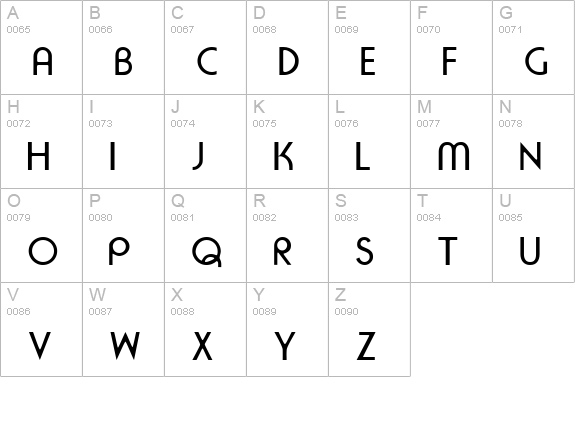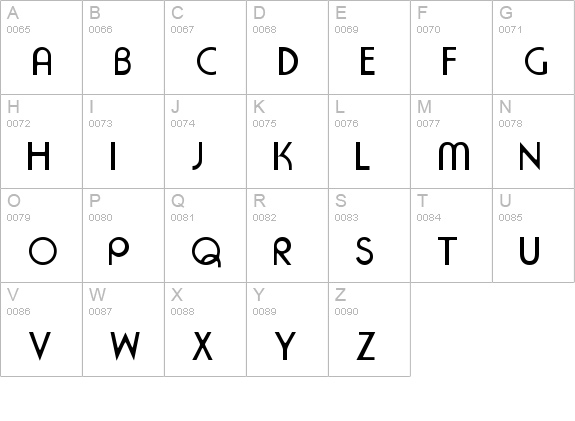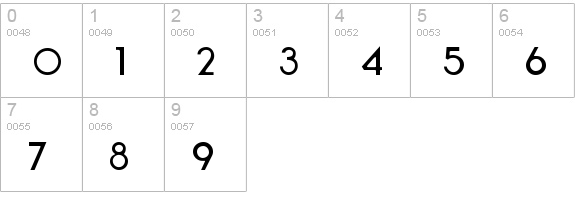
Serius SSi Font Details
Introducing Serius SSi, a captivating and versatile font that effortlessly blends elegance with modernity. This font is a true gem for designers, typographers, and creatives alike, offering a wide range of possibilities to elevate any project to new heights. Serius SSi boasts a unique and distinctive aesthetic that commands attention and leaves a lasting impression. Its refined letterforms exude sophistication and professionalism, making it a perfect choice for corporate branding, editorial design, and high-end products. From sleek and minimalist to bold and expressive, this font effortlessly adapts to various design contexts, adding a touch of class and sophistication. What sets Serius SSi apart is not only its impeccable design but also its accessibility. It is a font that caters to everyone, as it is freely available to download at FontsMarket.com. This means that you can unleash your creativity without any financial constraints, enjoying the freedom to experiment with this exceptional typeface in your personal and commercial projects. With a vast array of weights and styles, Serius SSi offers endless possibilities for customization and versatility. Whether you need a captivating headline, a refined body text, or a striking logo, this font has got you covered. Its clean and balanced letterforms ensure excellent legibility at any size, ensuring your message is communicated effectively. Serius SSi is a font that transcends trends and stands the test of time. Its timeless elegance and contemporary flair make it a reliable choice for any design project, whether it's print, digital, or web-based. So why wait? Download Serius SSi for free at FontsMarket.com and unlock a world of possibilities to elevate your designs to new heights. Experience the freedom of creativity and let Serius SSi empower your visual communication.